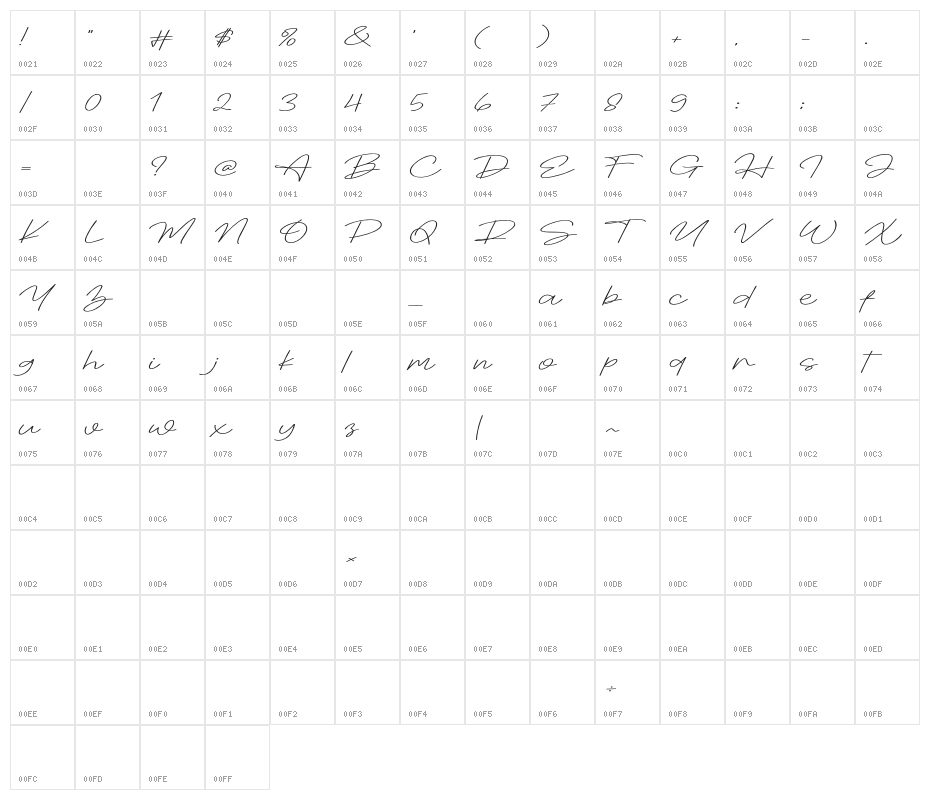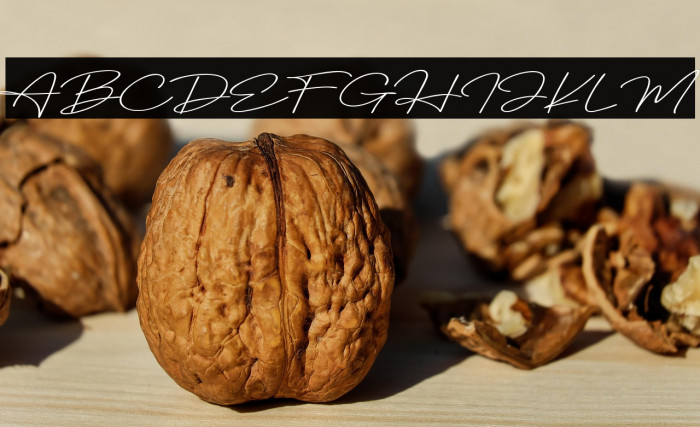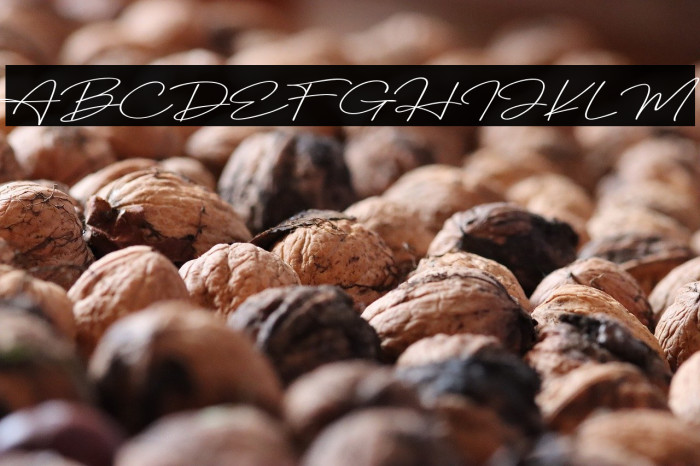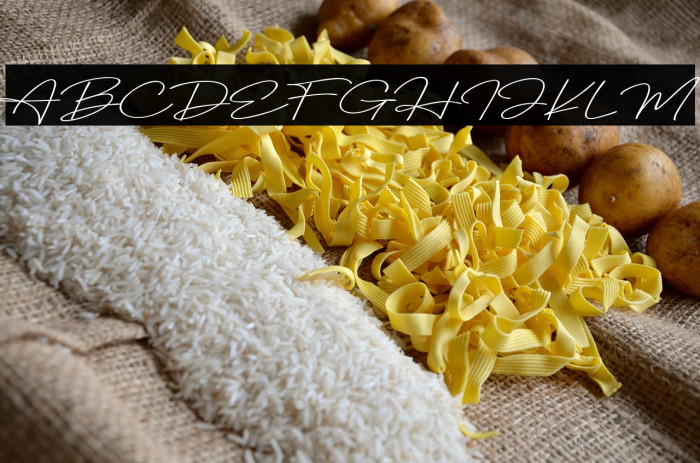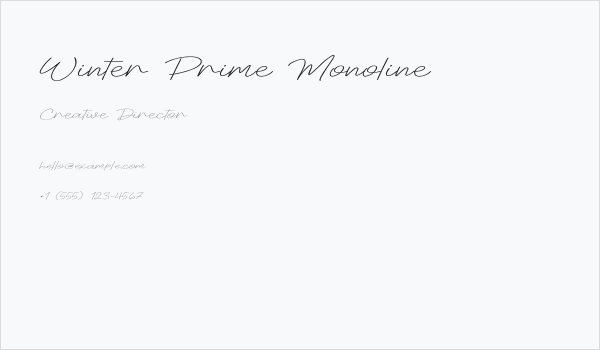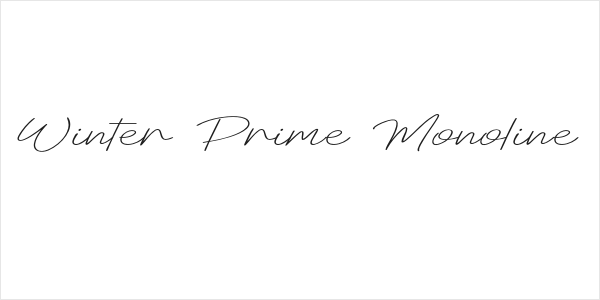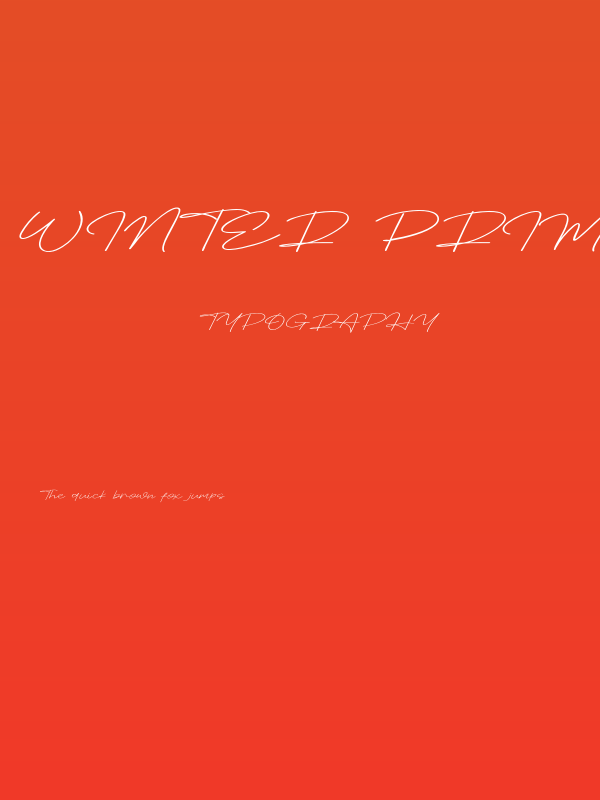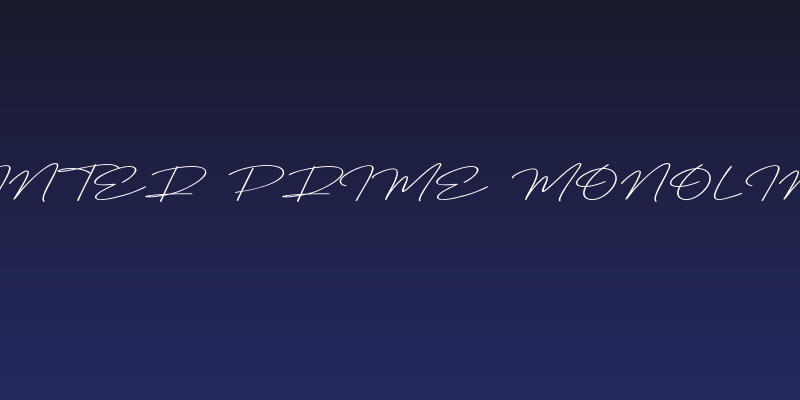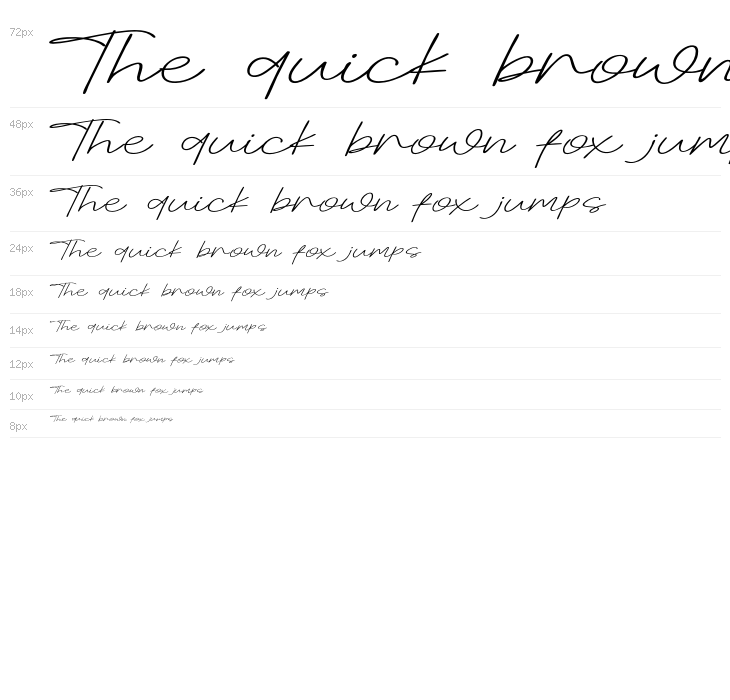
Winter Prime Monoline Font
Winter Prime Monoline Description
This elegant script font features a monoline design with smooth, flowing lines that create a sense of fluidity and grace. Each character is carefully crafted to maintain a consistent stroke width, giving the font a harmonious and balanced appearance. The uppercase letters are slightly more elaborate, while the lowercase letters maintain a simple yet sophisticated style. The numerals and special characters are designed to complement the overall aesthetic, making this font versatile for various applications. Its clean and modern look is perfect for projects that require a touch of elegance and sophistication.
| Proposed Projects | Ideal for wedding invitations, elegant branding, personal stationery, and upscale packaging. |